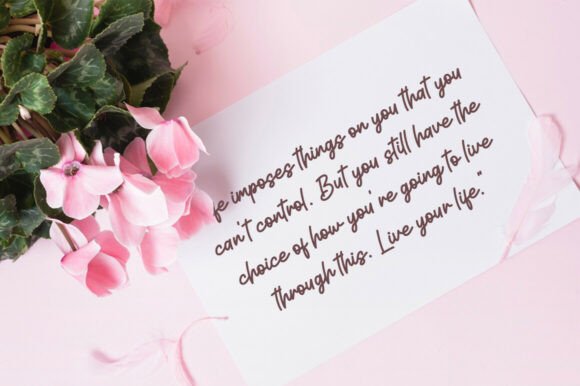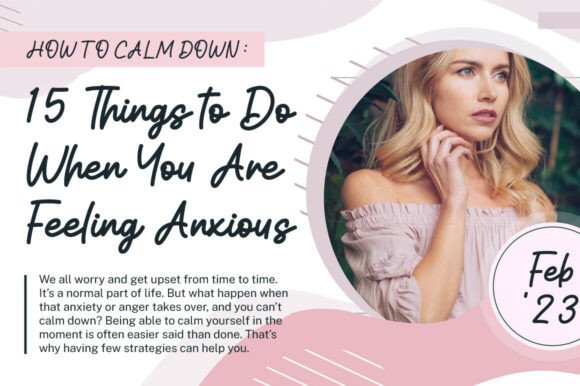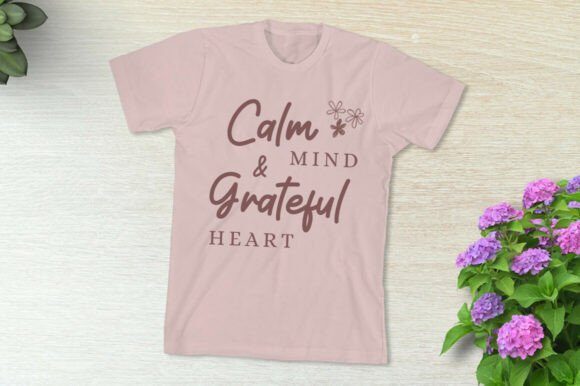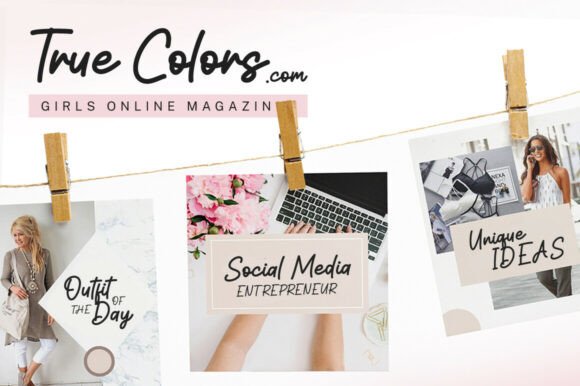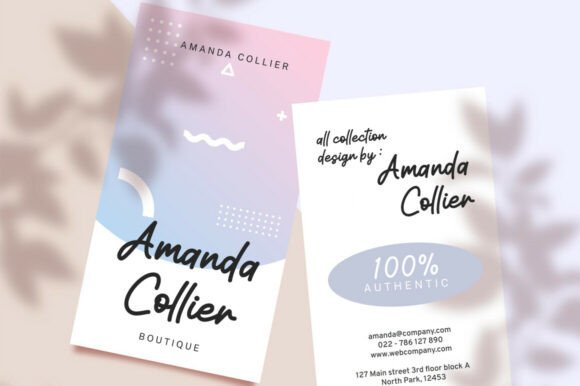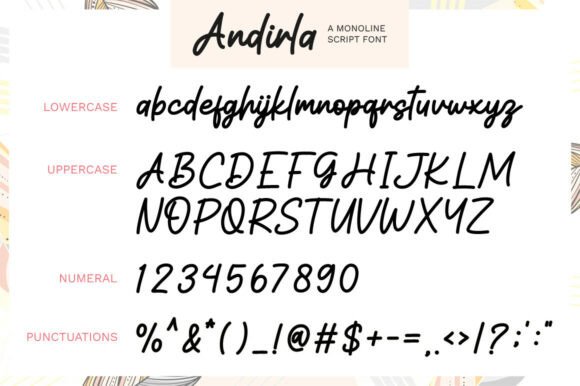
Unlock the Magic of Handwritten Typography
Do you remember the thrill of discovering that perfect font for your next design project? Maybe it was the first time you saw a beautiful handwritten font that made your logo come alive. For many designers, this moment is a game-changer – it’s the spark that ignites creativity and sets the tone for a project’s success.
Enter the Andirla Font, a timeless and lovely handwritten font that’s perfect for creating eye-catching logos, branding, and quotes. With its unique, personal touch, Andirla Font adds a human element to your designs, making them more relatable and engaging. For designers, this font is a valuable asset – it’s a go-to choice for projects where a handwritten feel is just what’s needed to elevate the message.
Andirla Font Key Features
- Unique Characteristics: The font features a unique blend of modern and traditional elements, with subtle rounded edges and elegant lines.
Andirla Font Review
When I first laid eyes on the Andirla font, I was immediately drawn to its unique aesthetic. ✨ The organic, handwritten feel to it is perfect for adding a touch of personality to designs. I love how it adds a sense of warmth and approachability to any project.
One of the things I appreciate most about Andirla is its versatility. ✨ It’s a great choice for both digital and print projects, and it works well in a variety of contexts – from logo design to branding and even typography-heavy layouts.
- ⚠️ Limited character set: The Andirla font only includes a basic set of characters, which may limit its use in more complex projects.
- ⚠️ Not ideal for body text: Due to its unique, handwritten feel, Andirla may not be the best choice for large blocks of body text.
Overall, I think Andirla is a solid addition to any designer’s toolkit. While it may have some limitations, its unique aesthetic and versatility make it a great choice for the right project. With a little creativity and planning, Andirla can add a touch of personality and whimsy to even the most mundane designs.
Getting the Most Out of Andirla Font
To get the most out of the Andirla font, use it for:
- Headings and titles.
- Body text for creative and editorial projects.
- Displaying quotes and phrases.
The Andirla font is commonly used for:
- Designing book covers and editorial content.
- Creating digital marketing materials.
- Developing branding and advertising campaigns.
Alternatives to Andirla Font for Designers
Great Vibes Font is a modern calligraphy font perfect for creating elegant and sophisticated designs. It’s ideal for use in invitations, wedding designs, and high-end branding. Great Vibes Font has a similar feel to Andirla Font, but with more refined and precise lines, making it a great choice for designers who want to add a touch of sophistication to their work.
Carolyna Pro Font is a versatile and modern script font that works well for a wide range of designs, from branding and packaging to digital and print materials. It has a similar playful and friendly feel to Andirla Font, but with a more polished and refined look. Carolyna Pro Font is a great choice for designers who want to add a touch of whimsy and personality to their work.
Alex Brush Font is a beautiful and elegant script font that’s perfect for creating high-end designs. It has a similar feel to Andirla Font, but with more intricate and detailed lines, making it a great choice for designers who want to add a touch of luxury and sophistication to their work.
Pacifico Font is a modern and elegant script font that’s perfect for creating designs that evoke a sense of relaxation and calmness. It has a similar feel to Andirla Font, but with a more laid-back and casual vibe, making it a great choice for designers who want to create designs that feel fresh and modern.